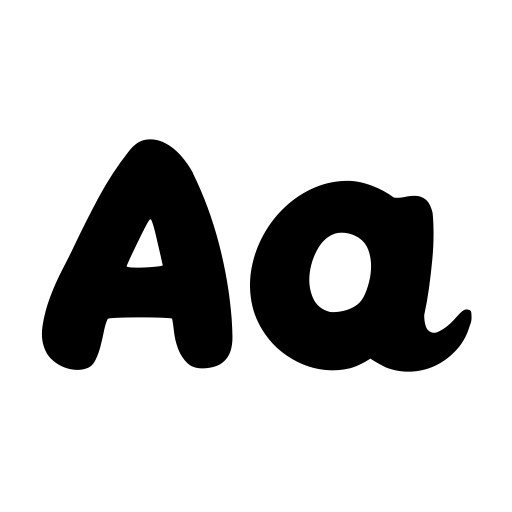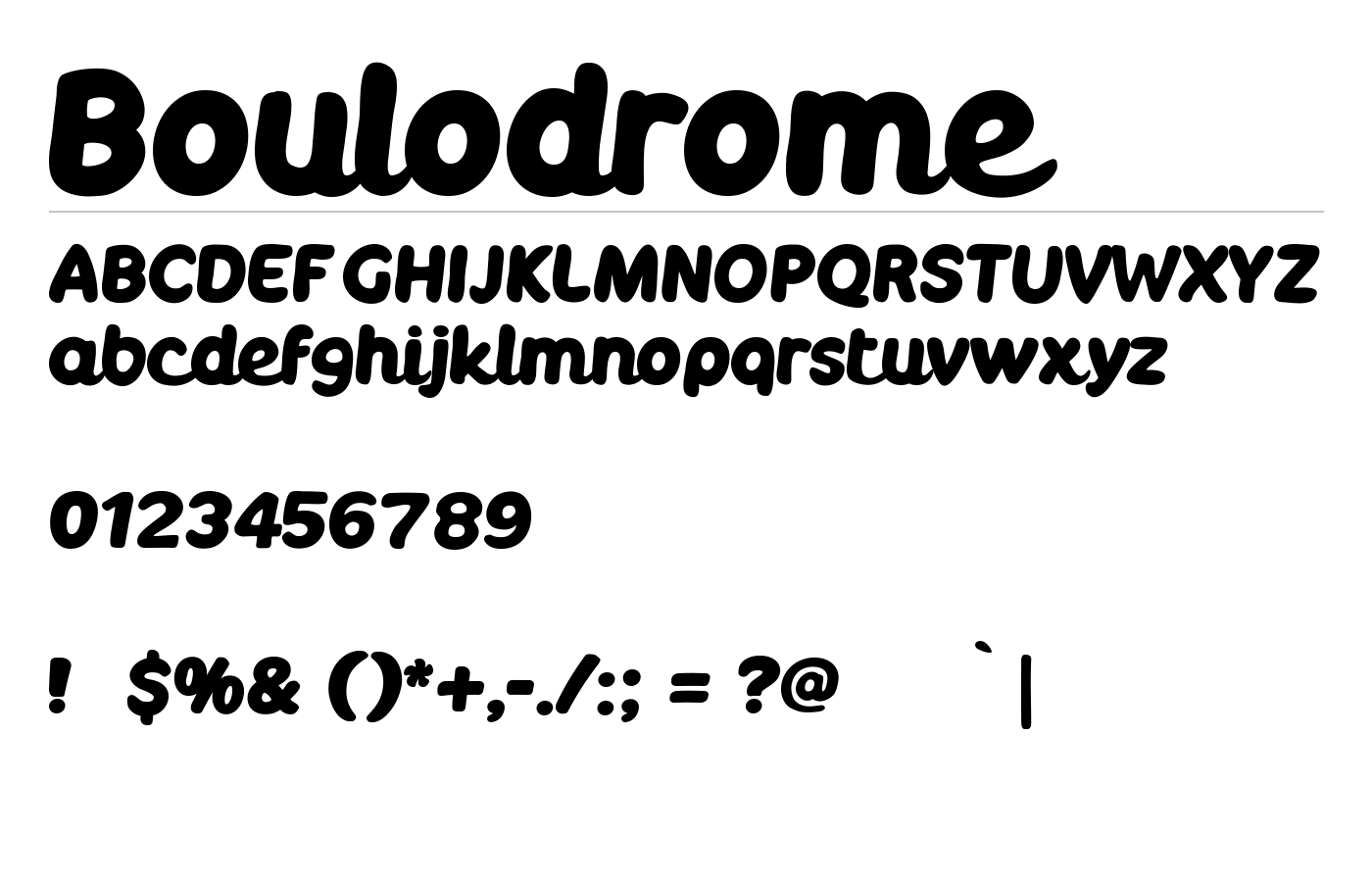
Boulodrome is a bold, playful sans-serif font with rounded, soft edges and a friendly, casual vibe. Its thick strokes and smooth curves give it a lively and approachable feel, making it perfect for fun branding, children’s materials, or informal headlines. This font works well where a warm, energetic look is desired to grab attention and convey a cheerful personality.
Boulodrome Font
About Boulodrome Font